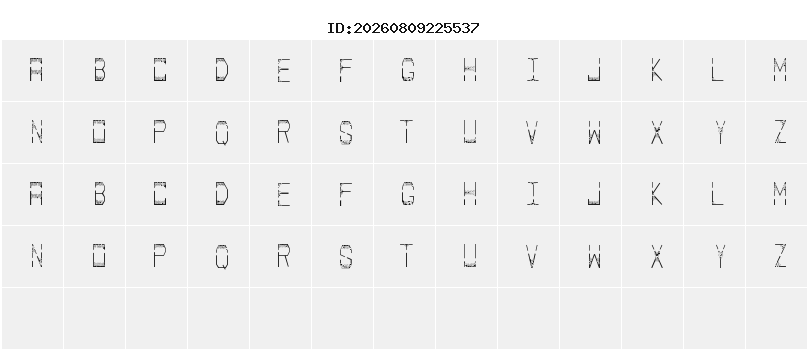
Palace.ttf is a modern, elegant sans-serif font designed for ultimate readability and visual harmony. Perfect for branding, headlines, web design, and print materials.